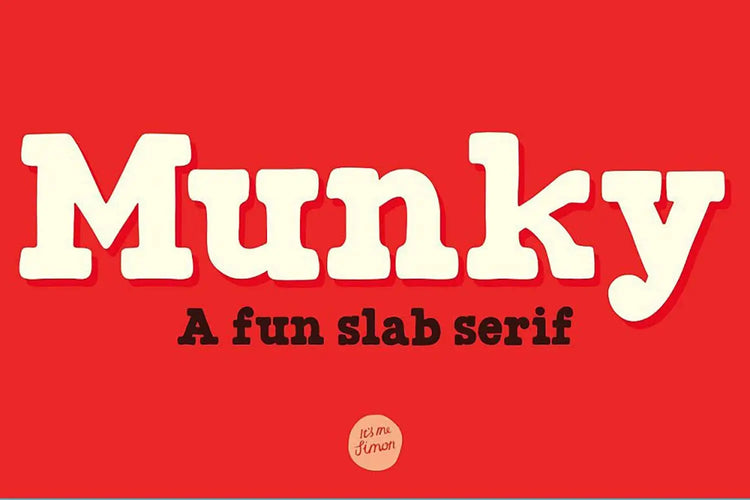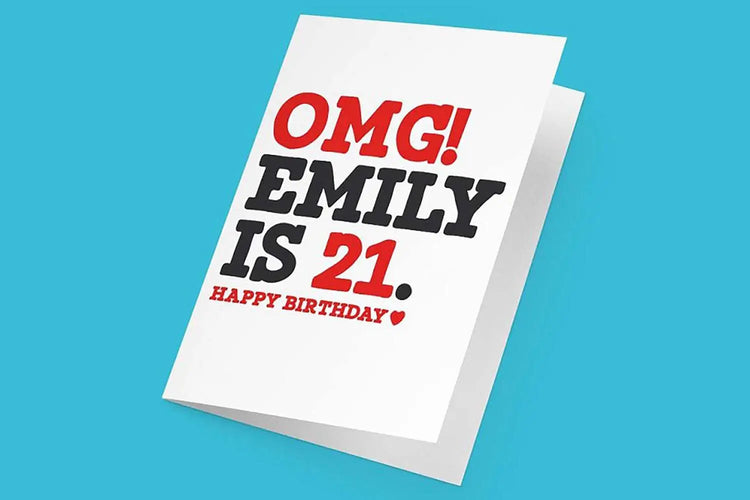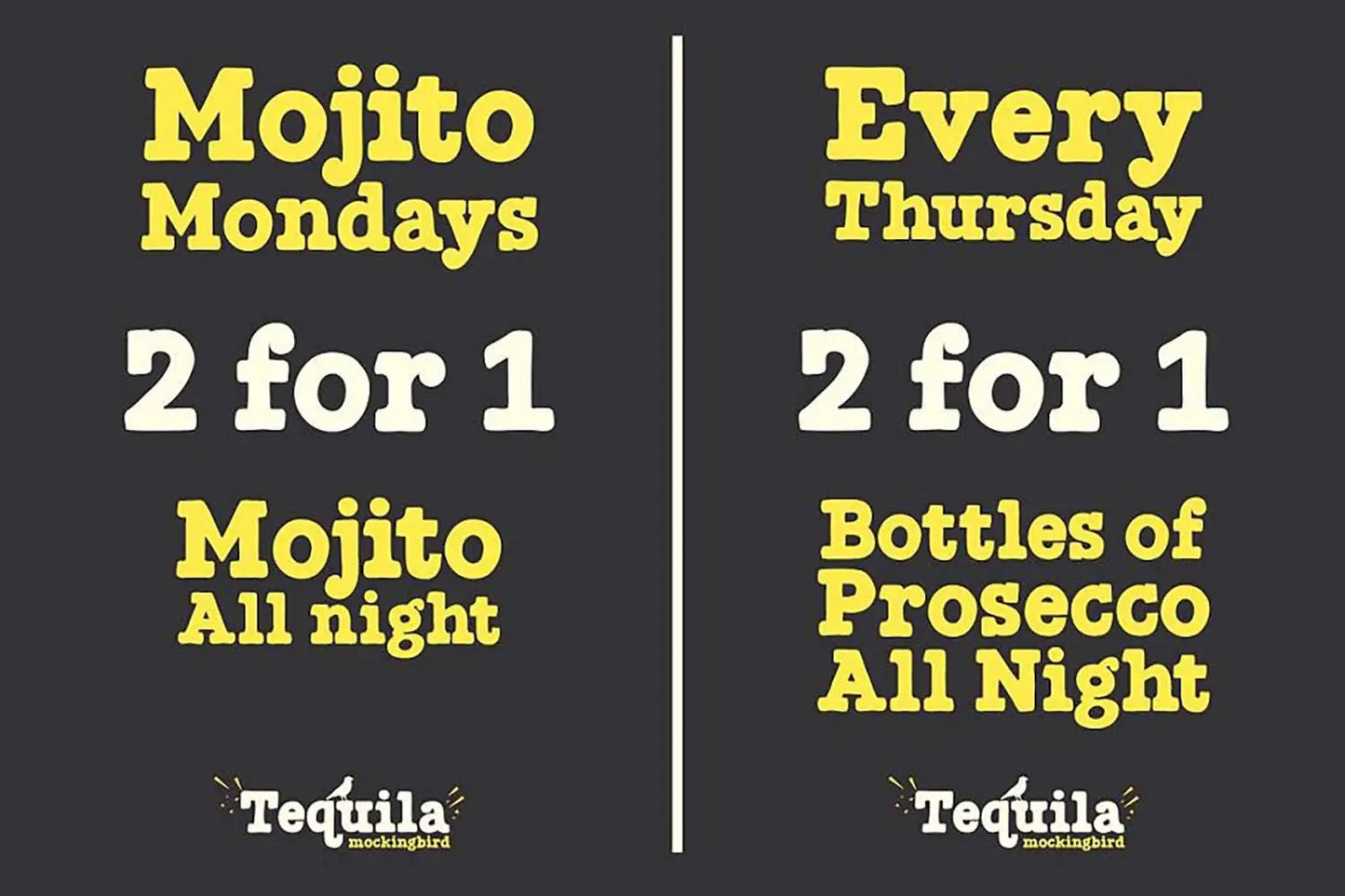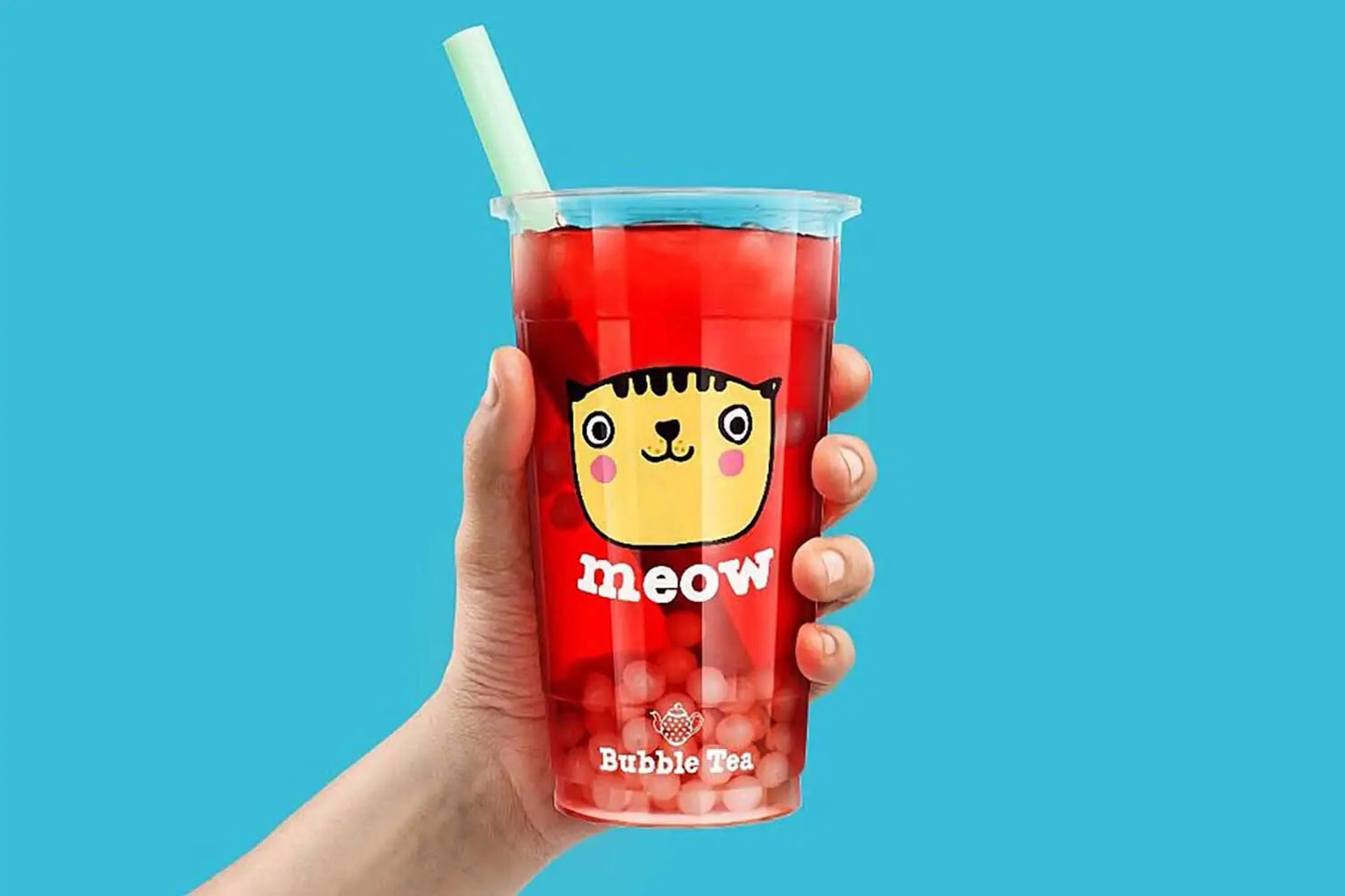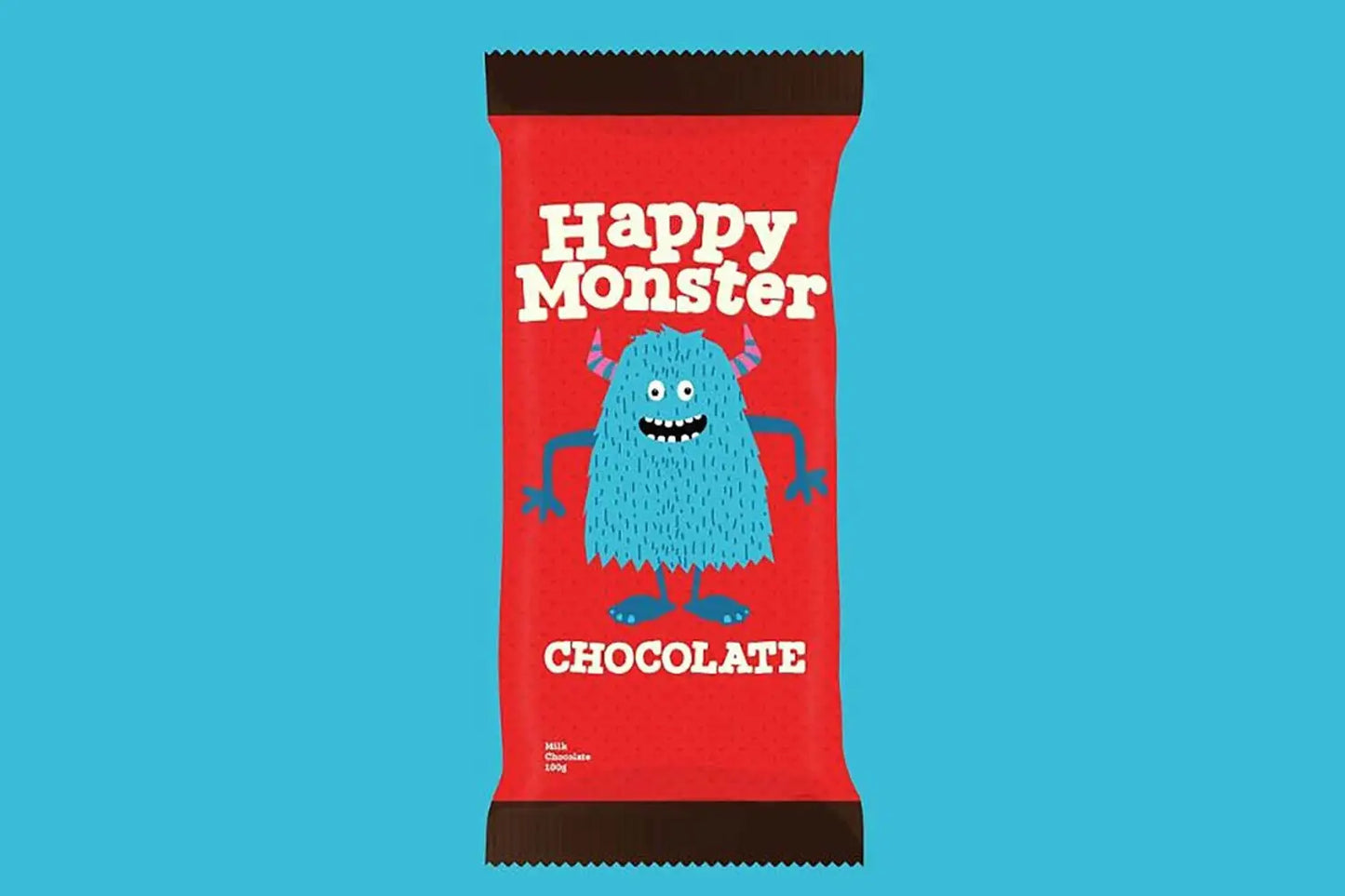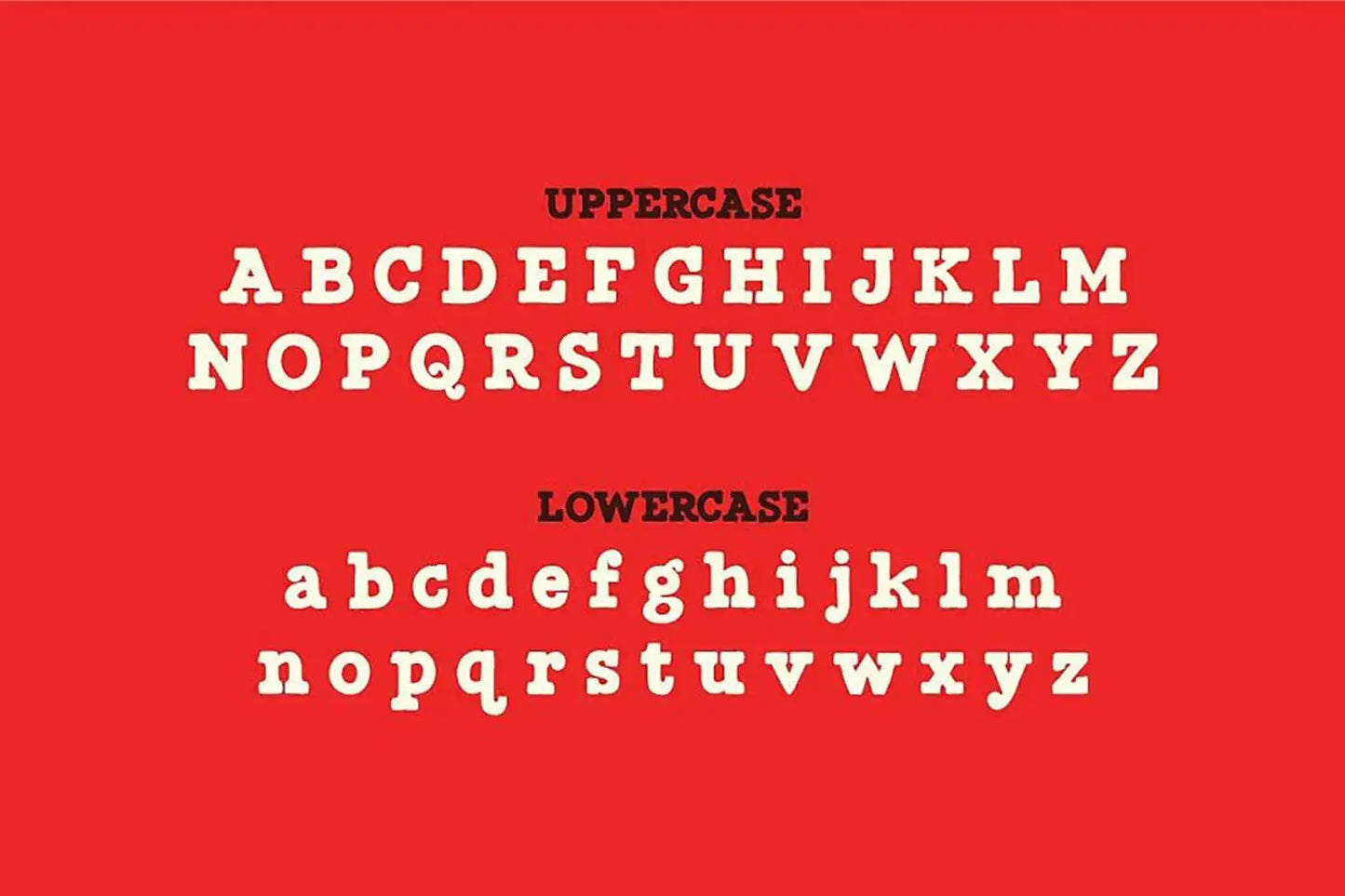
Munky — Fun Slab Serif Font
About Munky
Meet Munky, the slab serif font that's like a big bowl of typographic goodness.
In case you're wondering, a slab serif font is all about those bold and chunky serifs that make a statement. Think of it as the John Cena of typefaces—bold, robust, and ready to grab your attention.
But Munky is no serious suit-and-tie font; it's got a playful and cheeky side. Its serifs are like oversized characters in a quirky story, adding charm and a touch of mischief.
It's not just for fancy headlines; Munky plays well in everyday sentences too.
So whether you're branding, packaging, writing books, or sending out invites, Munky brings a relaxed vibe without going overboard on the goofiness.
Now, where did the name come from? Well, it's a nod to the classic Japanese TV series Monkey, based on the epic "Journey to the West." This show was a wild ride of adventure, and as a kid, I was totally hooked. The name Monkey was already taken, so I gave it my own twist and turned it into Munky.
If Munky font were a celebrity
If Munky font were a celebrity, it would be John Cena—like a typographic powerhouse—bold, attention-grabbing, and always ready to make a statement!